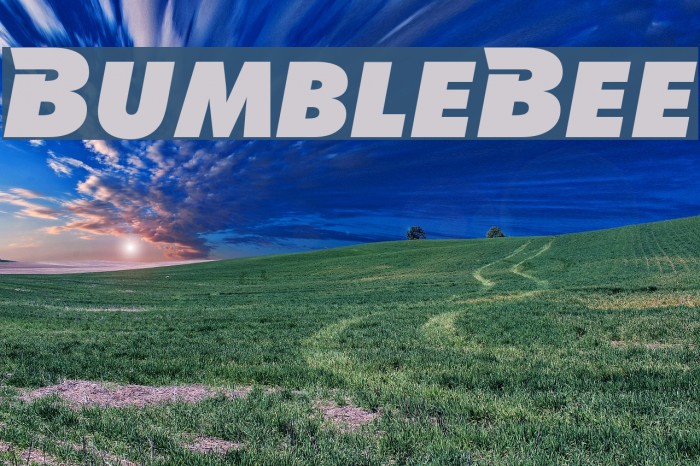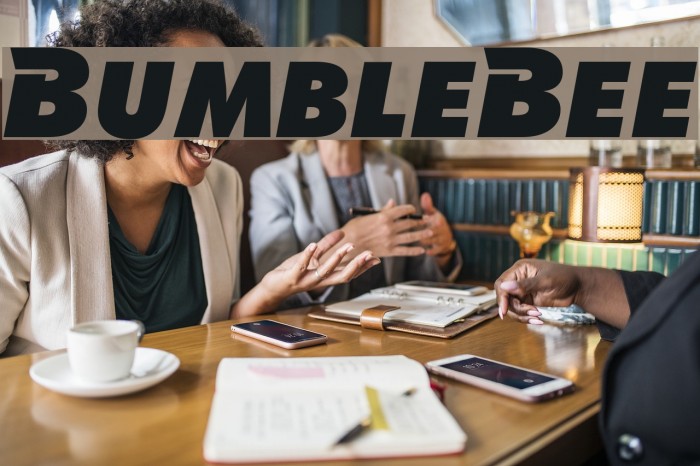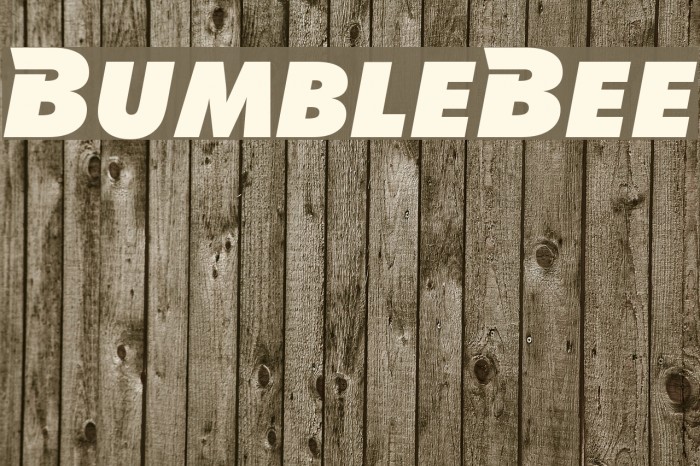
BumbleBee Font
This font features bold, uppercase letters with a strong, impactful presence. The characters are slightly italicized, giving them a dynamic and forward-moving appearance. The strokes are thick and consistent, providing a sense of stability and confidence. The overall design is clean and modern, making it suitable for attention-grabbing headlines and titles. The spacing between characters is tight, enhancing the compact and powerful look of the text. This font is ideal for projects that require a bold statement, such as branding, advertising, and poster design.
A bold, italicized font with strong, impactful uppercase letters.
- Proposed Projects: Ideal for branding, advertising, poster design, and headlines.
- Character Spacing: Tight